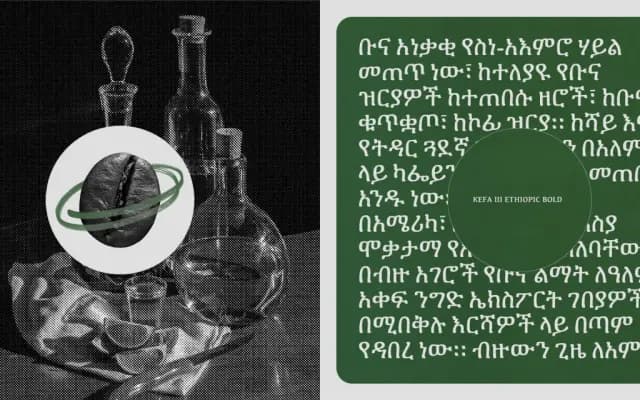
Kefa III
A third-generation update to Apple's Kefa system typeface, extended by Black Foundry to cover Ethiopic script alongside a broad Latin character set including Vietnamese.
Originally an Apple system typeface, this third version has been rebuilt to Black Foundry's standard glyph set, adding Vietnamese, a wide range of currency symbols, fractions, arrows and case-sensitive punctuation. Four weights from Light to Extra Bold come with matching italics, and the family ships with variable font files for weight interpolation. The Ethiopic coverage is extensive, supporting Amharic alongside Central and Southern Ethiopian scripts, making it one of the few text-weight slab serifs that bridges Latin calligraphic tradition with a fully considered Ethiopic character set.
Kefa III blends slab serif structure with Latin calligraphic influences and Ethiopic script heritage, placing it firmly in the humanist slab category where warm, calligraphic forms underpin a sturdy bracketed serif construction.